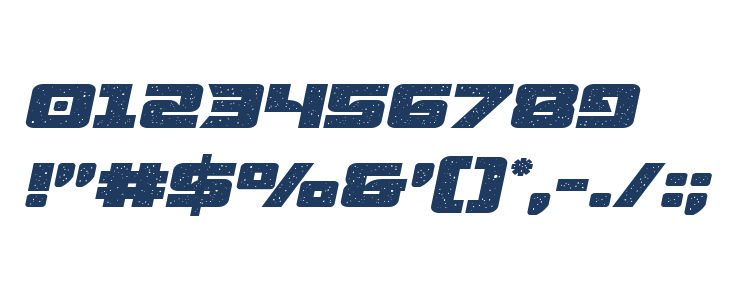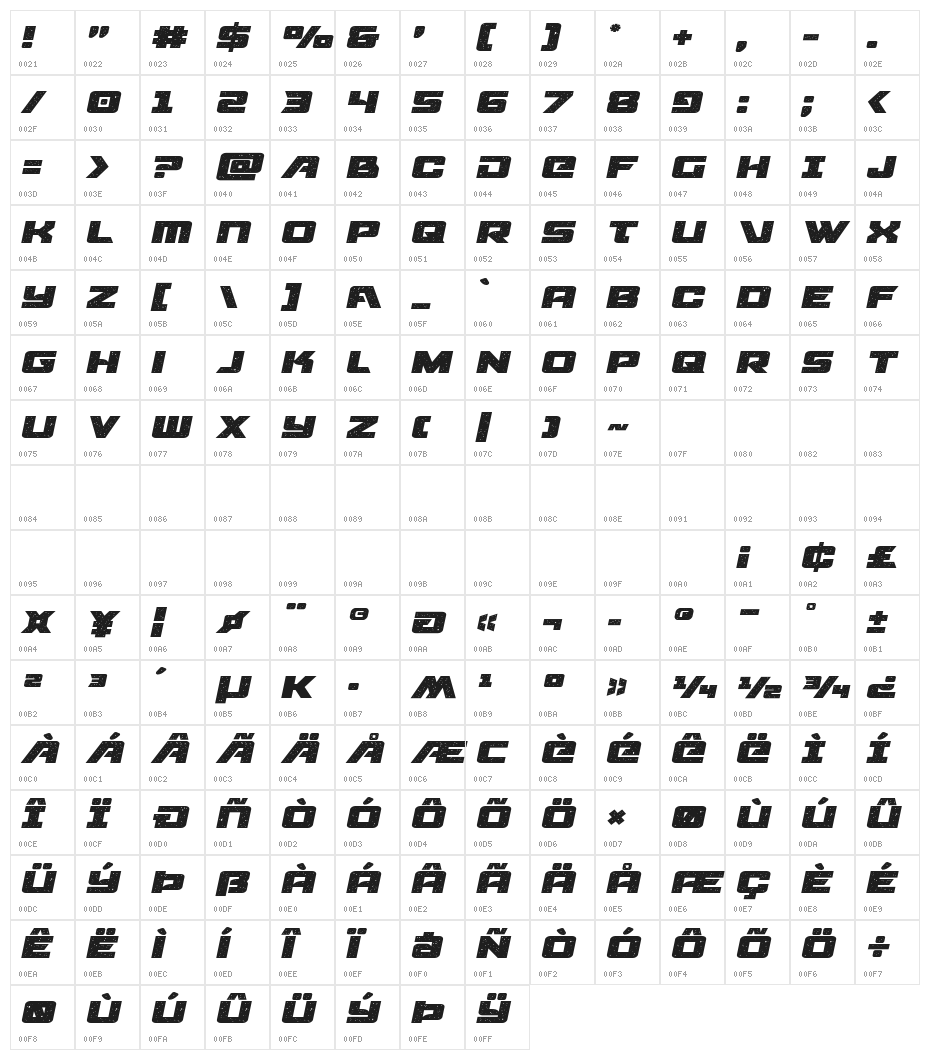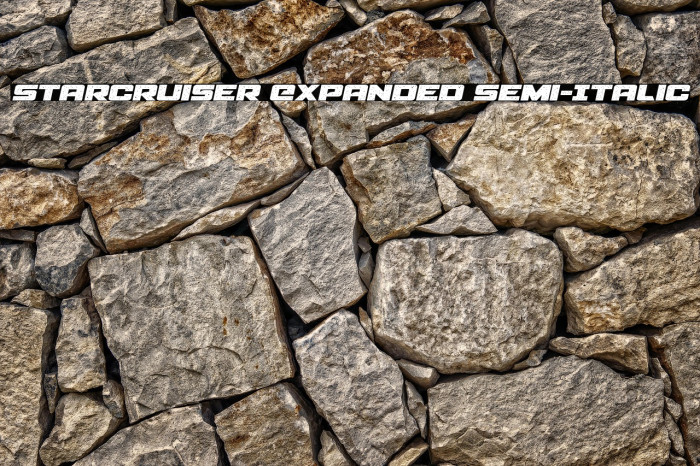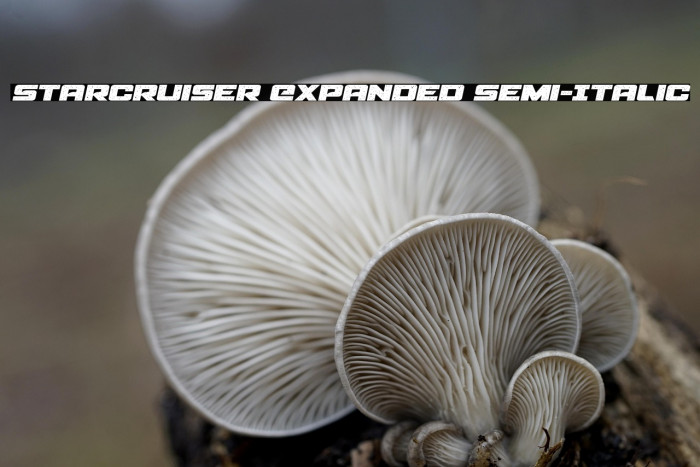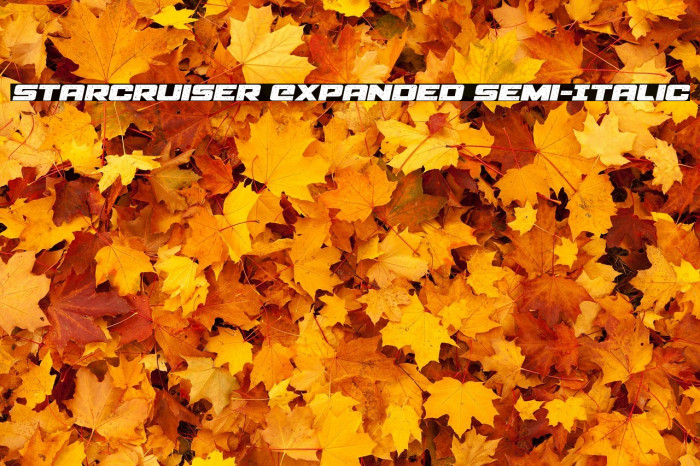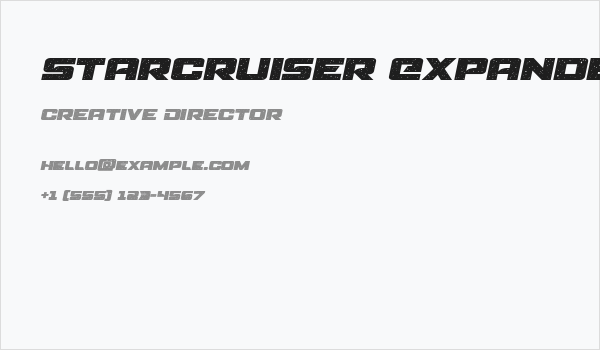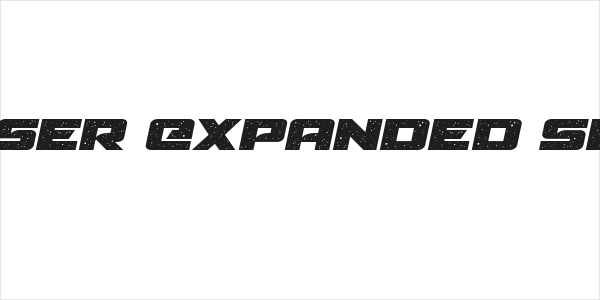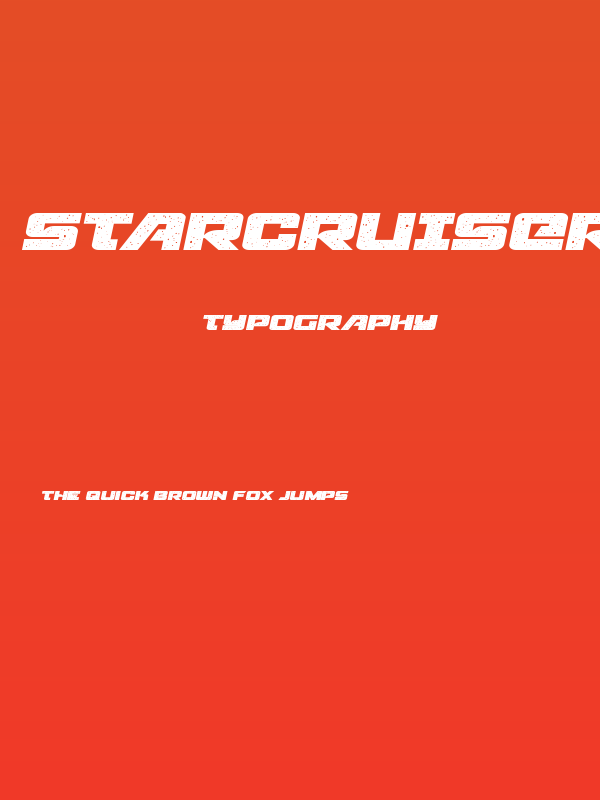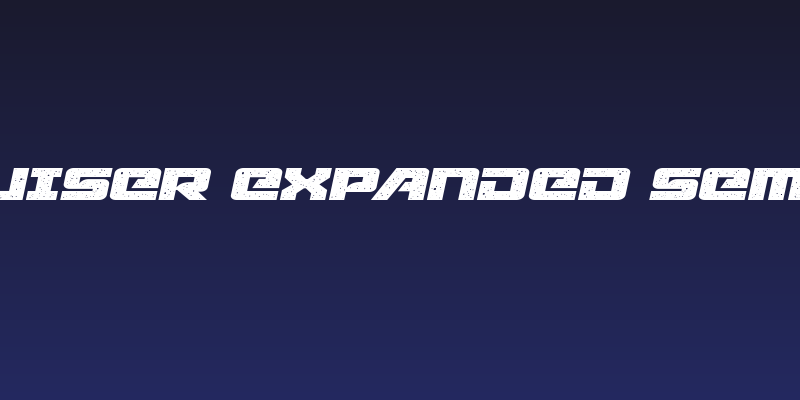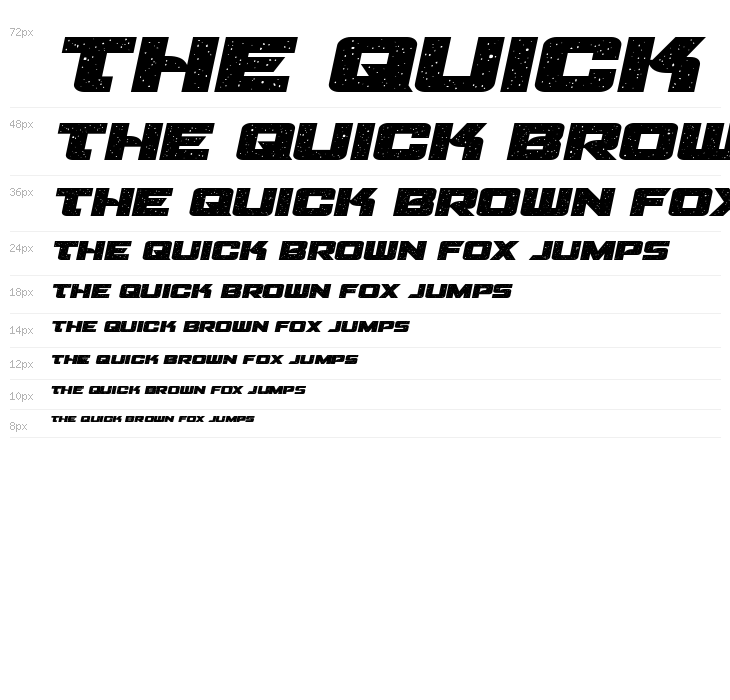
Starcruiser Expanded Semi-Italic Font
Starcruiser Expanded Semi-Italic Description
This font features a futuristic and bold design with an expanded width and semi-italic style. The characters are constructed with a distinct geometric form, incorporating sharp angles and clean lines. The design includes a unique pattern within each letter, reminiscent of a starry sky or cosmic theme, adding a decorative touch. The uppercase letters are prominent and assertive, while the numbers and special characters maintain the same stylistic elements, ensuring consistency throughout. This font is ideal for projects that require a modern and space-themed aesthetic.
| Proposed Projects | Ideal for sci-fi themed posters, video game titles, and space-related branding. |